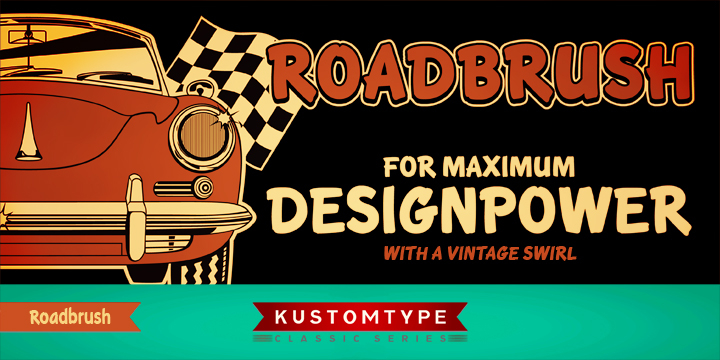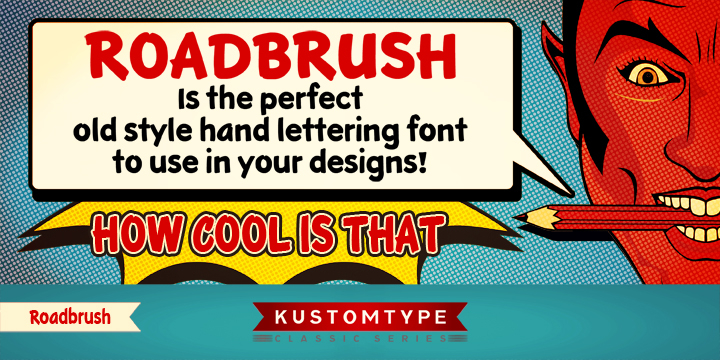
Roadbrush is a comic font family. This typeface has four styles and was published by Kustomtype.
The twin of Kustomtype’s other best-selling font ‘Roadstar,’ Roadbrush makes a uniquely bold yet classy statement. Widely used for modern and retro designs, Roadbrush was inspired by the mid-20th-century hand lettering of Albert Eckhardt, Jr. found in a 1950’s sign painting book. Featuring a simultaneously thick and smooth character, it’s suitable for ardent, powerful, and clear designs for your advertising, branding, comics, magazines, shop windows, and so much more.